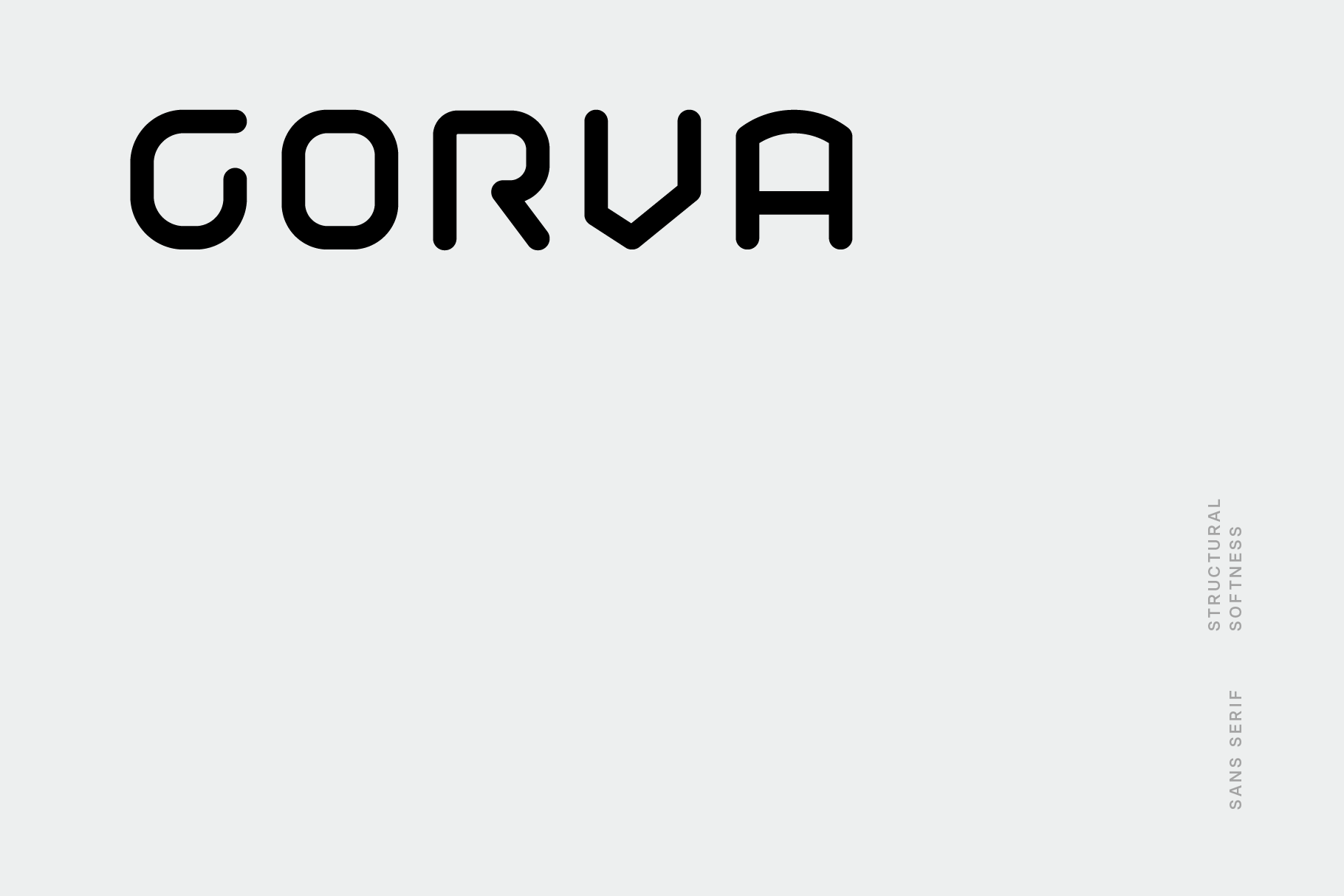
Gorva is a structural yet soft linear sans apt for headline, editorial, branding, packaging, printed materials and typographic applications. 150+ glyphs with ligatures and fractions provided in opentype .otf and .woff format.